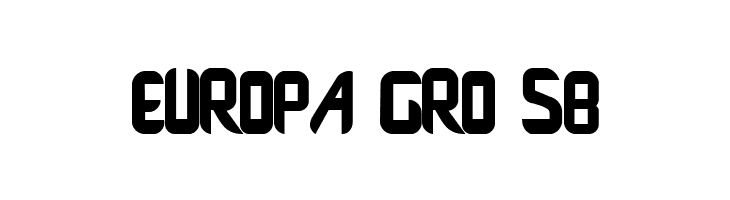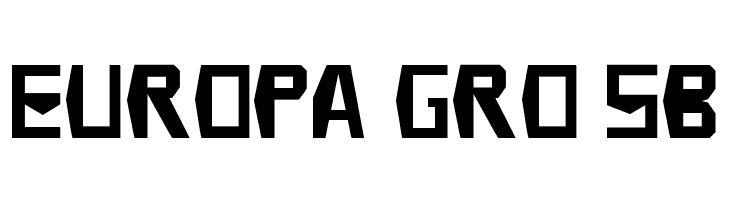
( JFType )
A bold, geometric font with a modern and assertive style.
( JFType )
A dynamic, angular italic font with a modern and sleek design.
( JFType )
A bold, italicized font with a modern, dynamic style and angular design.
( JFType )
A bold, geometric font with strong, angular lines and a modern aesthetic.
( JK Typeface - hiltonbrasfoot.wixsite.com/jktypeface )
A bold, angular font with a futuristic and geometric design.
( JK Typeface - hiltonbrasfoot.wixsite.com/jktypeface )
A bold, angular font with a futuristic and aggressive style.
( JK Typeface - hiltonbrasfoot.wixsite.com/jktypeface )
A bold, angular font with a futuristic and geometric design.
( JK Typeface - hiltonbrasfoot.wixsite.com/jktypeface )
A bold, geometric font with a futuristic and modern style.
( JK Typeface - hiltonbrasfoot.wixsite.com/jktypeface )
A bold, structured font with block-like serifs and a vintage industrial feel.